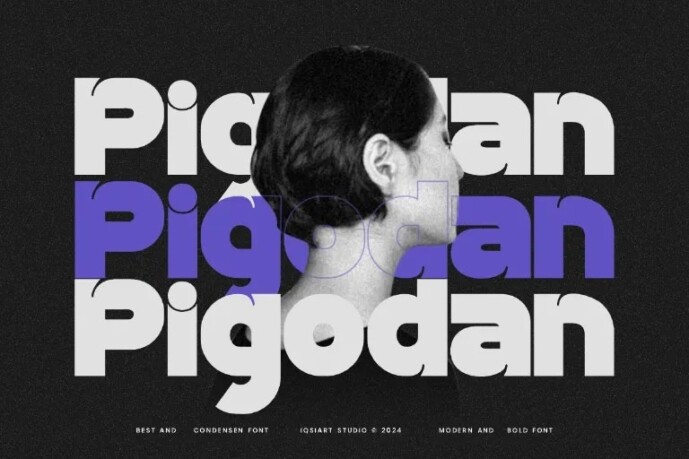
Pigodan Font
Designer: IQSIART STUDIO
Pigodan is a stylish and authentic display font. It’s perfect for different projects like logos, posters, or branding. Simple and versatile, it adds a unique touch to your designs.